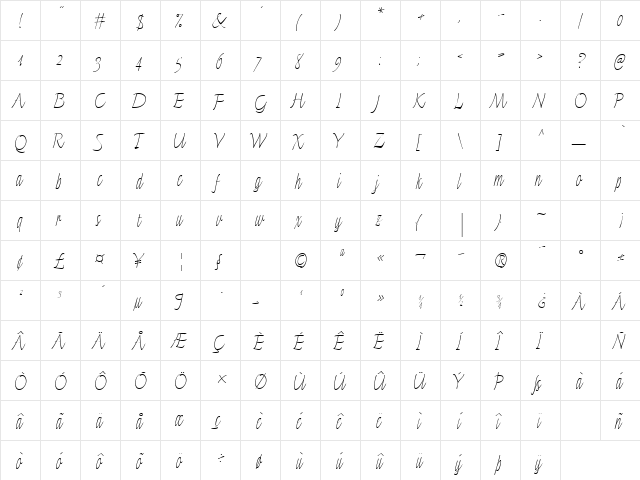
LTFinerliner Micro Regular Font Preview
LTFinerliner Micro Regular
Design Context for LTFinerliner Micro Typeface
LTFinerliner Micro is a composed and adaptable typeface that performs quietly and consistently across a wide range of design contexts.